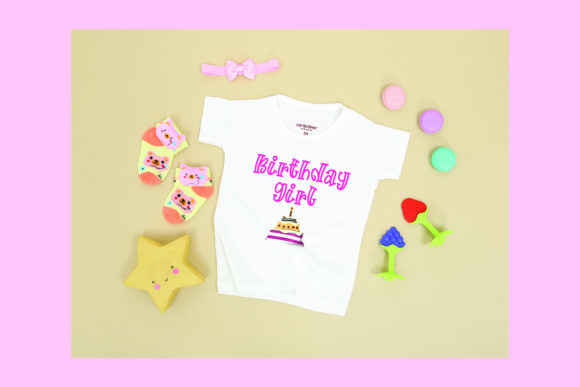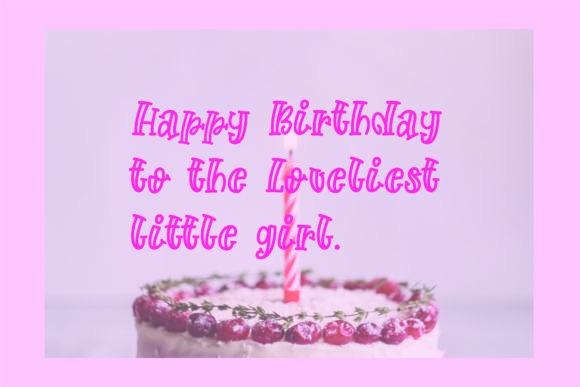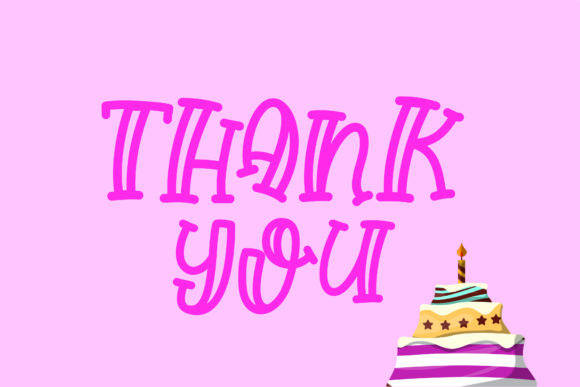
Designing with Joy: The Happy Birthday Font
As designers, we’ve all been there – staring at a blank canvas, trying to bring a client’s vision to life. And then, it hits you: a spark of creativity that sets off a chain reaction of inspiration. For me, it was a simple phrase: ‘Happy Birthday.’ The words evoke a sense of warmth and celebration, and I couldn’t help but wonder what font would perfectly capture that feeling.
Enter the Happy Birthday Font – a sweet and friendly serif font that’s as versatile as it is charming. Its natural outlined style makes it the perfect fit for a wide range of designs, from wedding invitations to business cards. Whether you’re a seasoned pro or just starting out, this font is a valuable addition to your toolkit.
Key Features of “Happy Birthday Font”
- Unique Characteristics: The font features a playful, cursive design with intricate details and flourishes, making it perfect for birthday celebrations and other festive occasions.
- Character Set: The font includes a wide range of characters, including uppercase and lowercase letters, numbers, and punctuation marks.
- Font Style: The font is a script font, with a flowing, handwritten feel that is reminiscent of traditional birthday cards and party decorations.
Designer Review: “Happy Birthday Font”
Overall, I was a bit underwhelmed by the “Happy Birthday Font”. While it has its moments, it’s not a game-changer for me. Here’s what I liked and didn’t like:
- The font is playful and fun, perfect for birthday celebrations or other festive occasions.
- The script style gives it a handwritten feel, which is great for adding a personal touch.
- The font is relatively easy to read, even at smaller sizes.
- The font is quite cursive, which can make it difficult to use in certain contexts, such as body text or headings.
- The font lacks a strong personality, which can make it feel generic or unremarkable.
- The font is not particularly well-suited for digital use, as it can be difficult to read on smaller screens.
Overall, I’d say the “Happy Birthday Font” is a solid choice for specific occasions, but it’s not a go-to font for everyday use. With a bit more personality and flexibility, it could be a real standout. As it stands, it’s a decent option, but not a must-have.
Getting the Most Out of the Happy Birthday Font
Use the Happy Birthday Font to add a personal touch to your birthday invitations, party decorations, and social media posts. Experiment with different font sizes, colors, and styles to create a unique look.
The Happy Birthday Font is perfect for:
- Birthday invitations and cards
- Party decorations and banners
- Social media posts and updates
- Birthday-themed graphics and illustrations
Alternatives to “Happy Birthday Font” for Designers
Compared to Happy Birthday Font, Great Vibes has a more refined and polished look, making it suitable for formal events or special occasions.
Pacifico has a more laid-back and effortless feel compared to Happy Birthday Font, which can be too playful and childish at times.